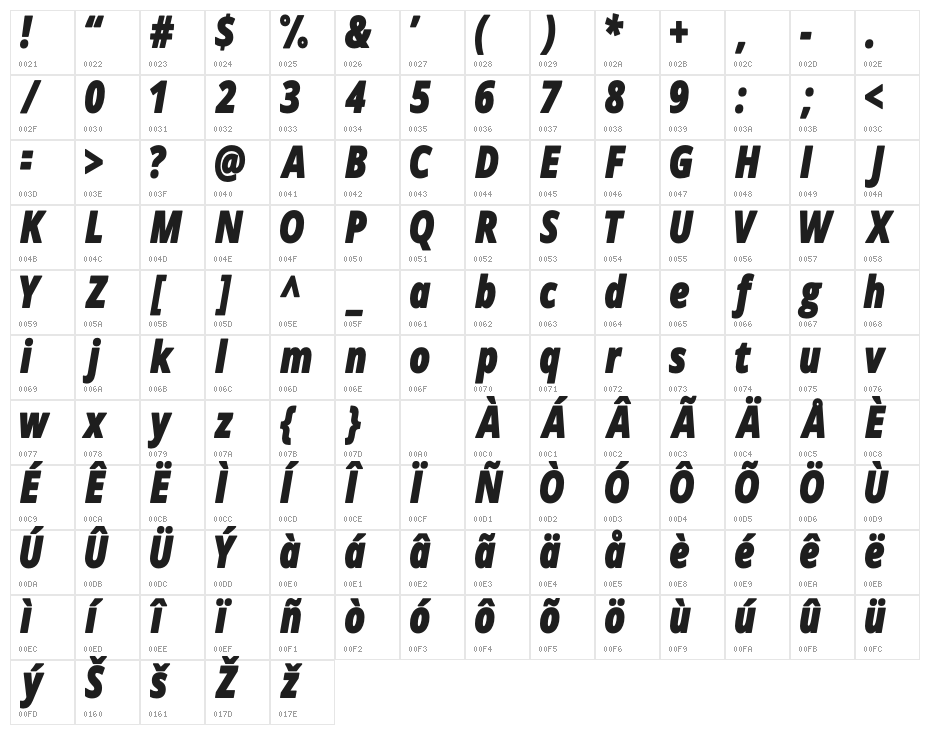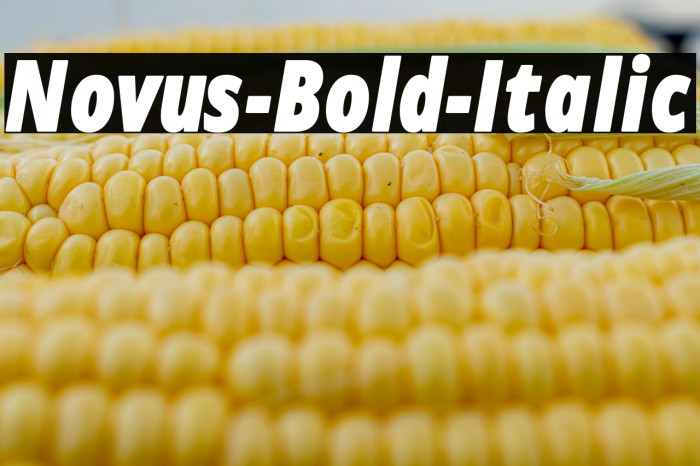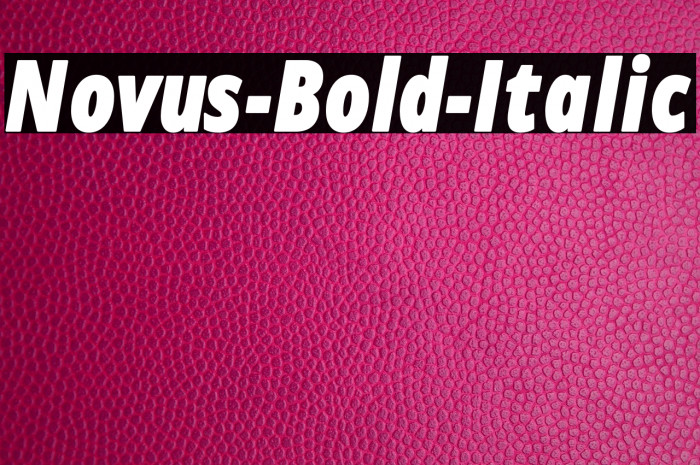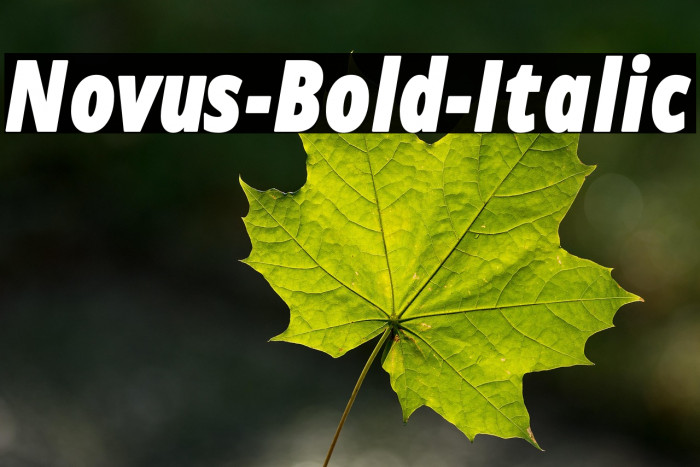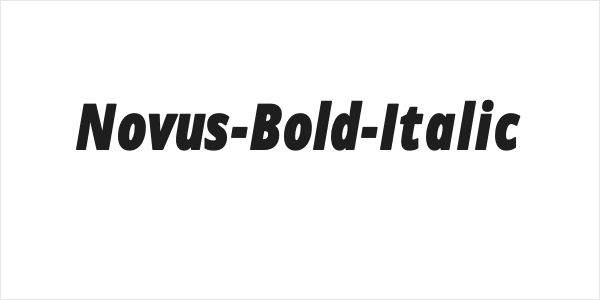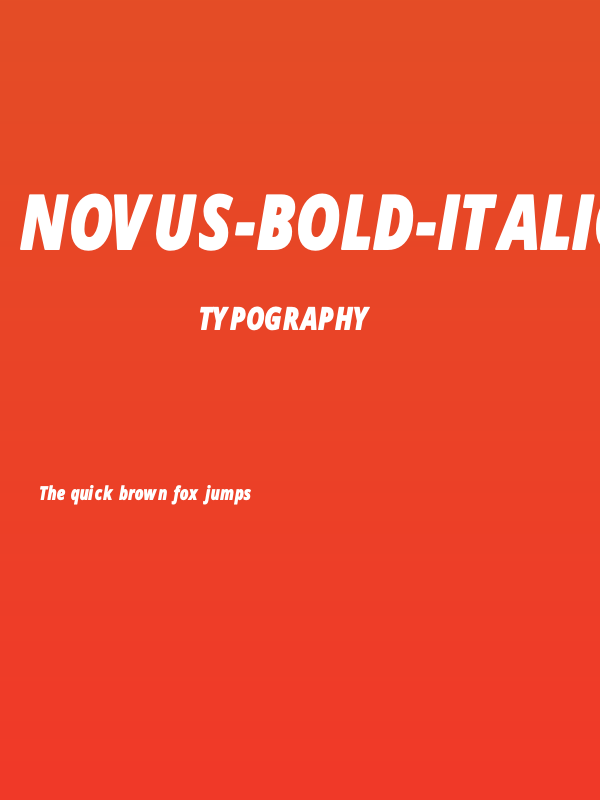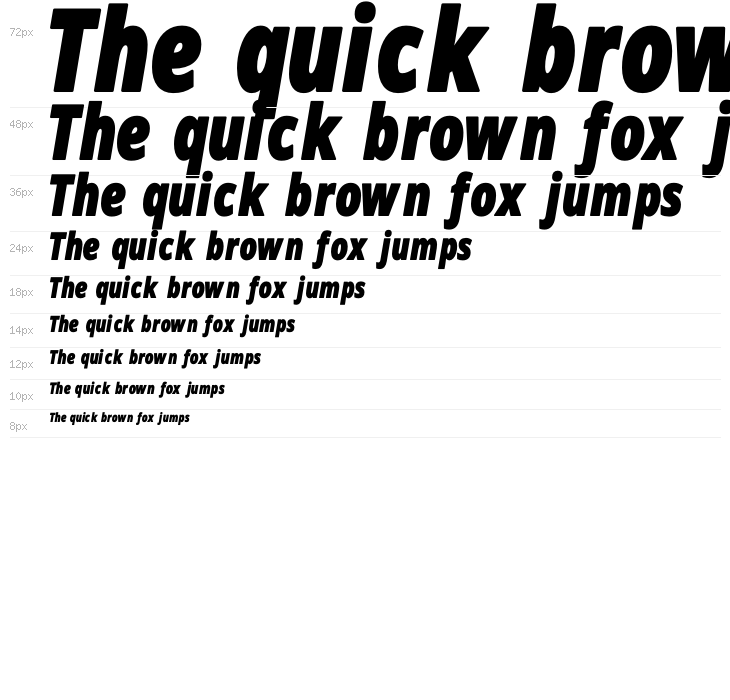
Novus-Bold-Italic Font
Novus-Bold-Italic Description
This font features a bold and italicized style, offering a strong and dynamic presence. The characters are thick and slightly slanted, providing a sense of movement and emphasis. The uppercase and lowercase letters maintain a consistent weight, ensuring readability while adding a touch of flair. The numerals are equally bold, making them stand out effectively. Special characters are designed to match the overall boldness, ensuring uniformity across all text elements. This font is ideal for making statements and grabbing attention, suitable for various creative applications.
| Proposed Projects | Ideal for headlines, posters, branding, and advertising materials where a bold statement is needed. |